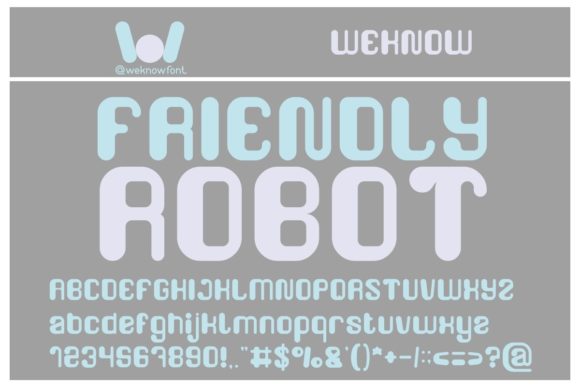
Embark on a typographical odyssey with Friendly Robot, the display font family that's a veritable playground of creativity. Its techno-infused aesthetics ignite the imagination, weaving a vibrant tapestry of possibilities for your design endeavors. Constructed with the precision of a master engineer, each character exudes a captivating blend of elegance and playfulness, striking a perfect balance between form and function.
Unleash your inner artist and let Friendly Robot be your creative compass. Its versatility knows no bounds, making it the perfect choice for a myriad of projects: from logos that command attention to headlines that dance off the page, from posters that ignite intrigue to websites that captivate and compel. Its distinct industrial undertones add an edgy allure, ensuring your designs leave an unforgettable impression.
Immerse yourself in the world of Friendly Robot and discover a font family that's more than just a collection of characters; it's an invitation to let your creativity run wild. Its adaptability ensures seamless integration into any design landscape, from the stark minimalism of corporate identities to the vibrant energy of apparel lines.
Let Friendly Robot be your steadfast companion in the pursuit of typographic excellence. Its versatility will astound you, enabling you to effortlessly elevate your designs across a vast spectrum of media. Craft magazine titles that demand attention, book covers that intrigue and entice, movie posters that transport viewers to other realms - the possibilities are as boundless as your imagination.
But Friendly Robot is more than just a tool; it's an experience. Its techno soul imbues your designs with a palpable energy, a sense of dynamism that captivates and engages. Its very essence breathes life into your creations, transforming them from mere visuals into immersive experiences that resonate with your audience.
Make Friendly Robot your font of choice and embark on a creative odyssey where the ordinary becomes extraordinary. Let its techno elegance ignite your imagination and unlock a world of design possibilities. From the sleek sophistication of corporate identities to the playful exuberance of social media graphics, Friendly Robot will elevate your designs to new heights, leaving a lasting impression on all who encounter them.
So, embrace the techno wonder of Friendly Robot and watch as your designs come alive with a vibrancy and energy that will leave your audience spellbound. Dive into the world of Friendly Robot today and discover the vast creative horizons that await you.